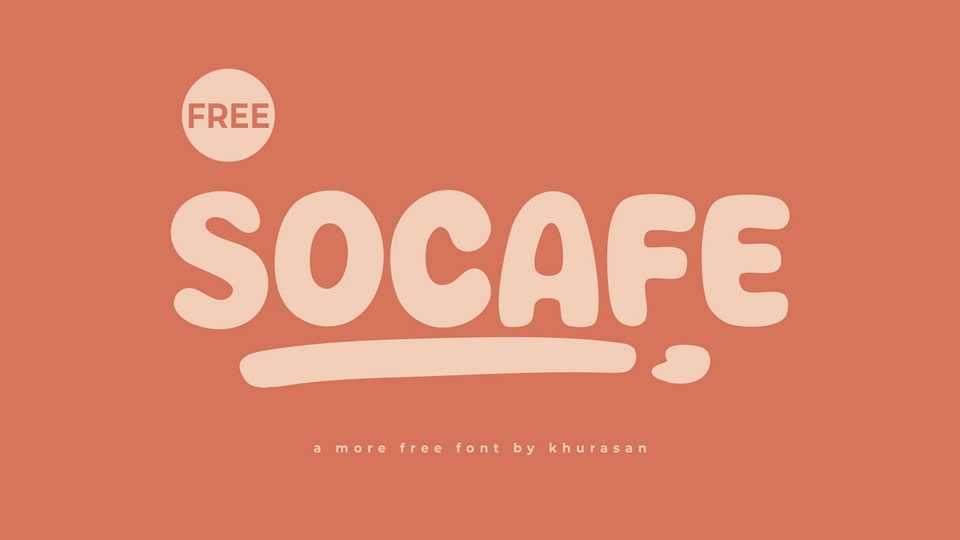
Download Socafe font, a playful hand-crafted typeface that adds a touch of joy and whimsy to your designs. It features round, inflated letterforms with soft curves.